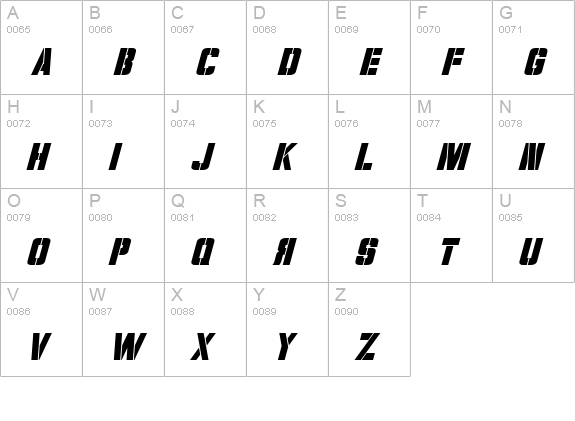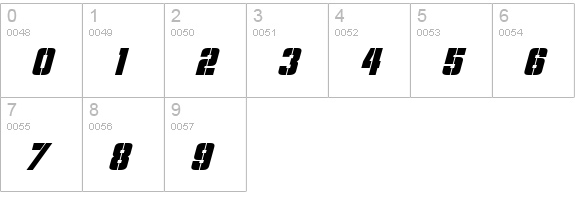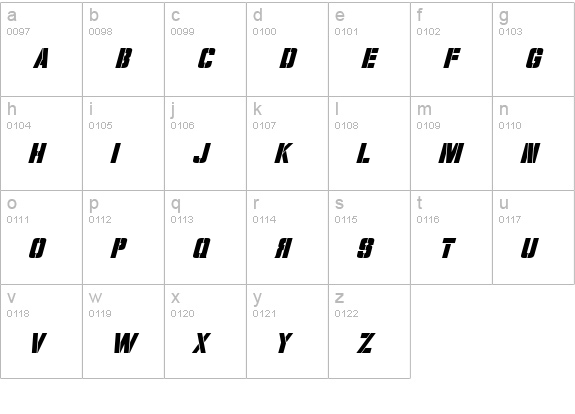
Volkoff Italic is a distinctive, italic variant in the Volkoff typeface family \xE2\x80\x94 well suited to design and typography projects.
Volkoff Italic font is a captivating and elegant typeface that adds a touch of sophistication to any design. With its unique and graceful curves, this font is perfect for creating stunning headlines, logos, and branding materials. The beauty of Volkoff Italic lies in its versatility. Whether you're designing for a fashion magazine, a luxury brand, or a high-end restaurant, this font will effortlessly elevate your project to new heights. It exudes a sense of refinement and class, making it the ideal choice for projects that require a touch of modern elegance. What sets Volkoff Italic apart is not only its impeccable design but also the fact that it is available for free. Yes, you read that right! This remarkable font can be freely downloaded at FontsMarket.com, making it easily accessible to designers, creatives, and enthusiasts alike. Downloading Volkoff Italic is a breeze, and once you have it in your font library, the possibilities are endless. Its clean and legible letterforms ensure optimal readability, even at smaller sizes, making it suitable for both print and digital designs. Whether you're creating eye-catching advertisements, stylish editorial layouts, or beautiful invitations, Volkoff Italic's versatile nature will effortlessly adapt to your creative vision. Its timeless appeal and attention to detail are sure to make a lasting impression on your audience. So why wait? Discover the beauty and versatility of Volkoff Italic font today and unlock a world of endless design possibilities. Head over to FontsMarket.com and download this extraordinary font for free!